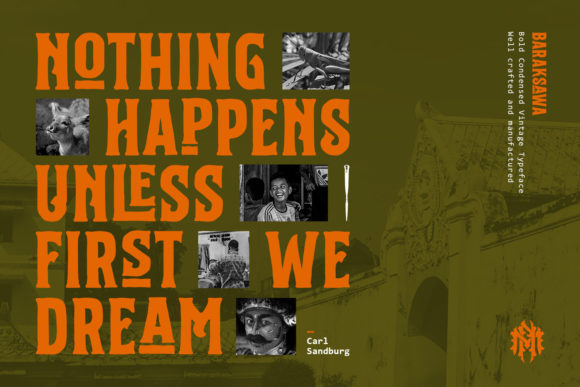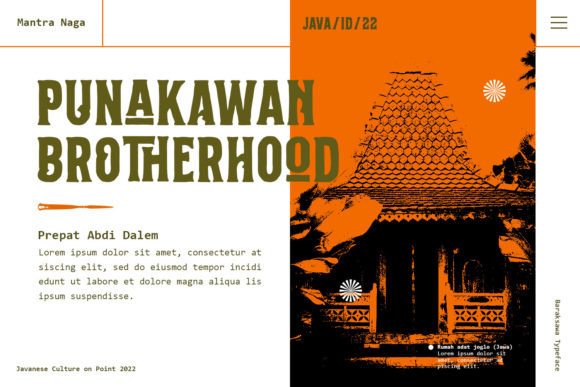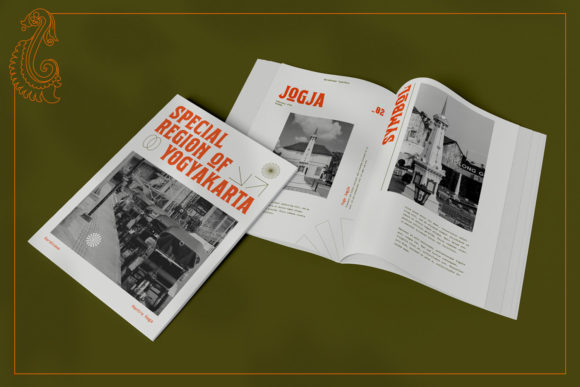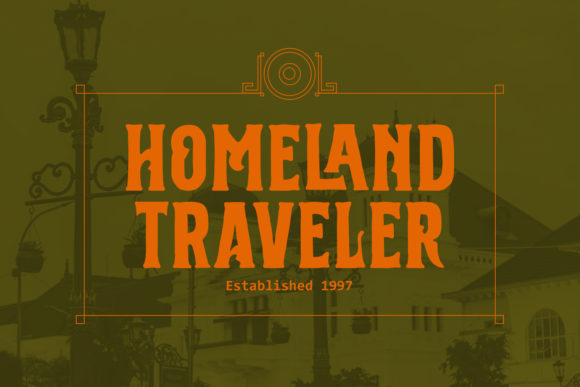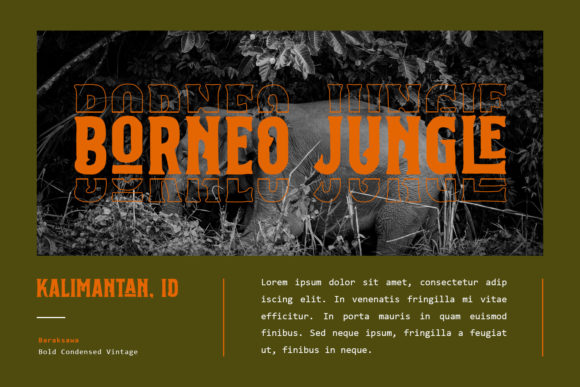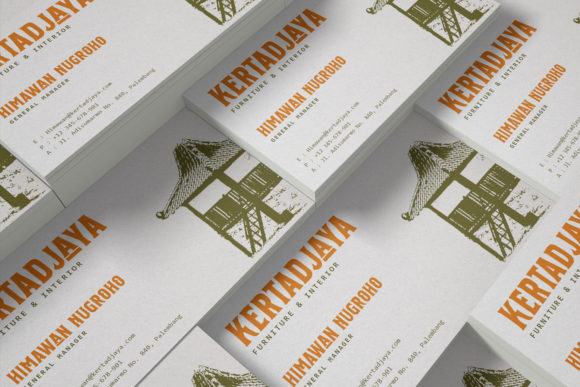
Introducing Baraksawa Font: A Bold, Condensed Vintage Serif Font
Are you looking for a unique and eye-catching font to elevate your design projects? Look no further than Baraksawa Font, a bold, condensed vintage serif font that’s perfect for a wide range of applications. With its bold serifs, grainy effects, and swashes, this font is sure to make your lettering and logotype stand out.
What Makes Baraksawa Font Special?
Baraksawa Font is a one-of-a-kind typeface that’s designed to add a touch of elegance and sophistication to your designs. Its bold serifs and grainy effects give it a unique texture that’s reminiscent of vintage fonts, while its condensed style makes it perfect for use in a variety of contexts, from logos and invitations to labels and magazines.
One of the standout features of Baraksawa Font is its extensive range of swashes, which can be used to add an extra touch of flair to your lettering and logotype. With many alternatives to choose from, you can experiment with different combinations to find the perfect look for your project.
Baraksawa Font is a versatile typeface that can be used in a wide range of design projects, including:
- Logos: Create a bold and eye-catching logo that makes a statement with Baraksawa Font.
- Invitations: Add a touch of elegance to your invitations with this beautiful vintage serif font.
- Labels: Use Baraksawa Font to create labels that stand out on products, packaging, and more.
- Magazines and books: Add a touch of sophistication to your publications with this bold and condensed font.
- Greeting and wedding cards: Create beautiful and unique cards with Baraksawa Font.
- Packaging: Use this font to create eye-catching packaging that stands out on store shelves.
- Fashion and beauty: Baraksawa Font is perfect for use in fashion and beauty branding, from logos to labels.
- Stationery: Create unique and personalized stationery with this beautiful font.
- Novels and fiction: Add a touch of elegance to your novel or fiction publication with Baraksawa Font.
- Advertising: Use this font to create eye-catching ads that grab attention.
Why Choose Baraksawa Font?
There are many reasons why Baraksawa Font stands out from the crowd. Here are just a few:
- Unique and eye-catching design: Baraksawa Font is a one-of-a-kind typeface that’s sure to grab attention.
- Versatile: This font can be used in a wide range of design projects, from logos to labels.
- Elegant and sophisticated: Baraksawa Font adds a touch of elegance and sophistication to any design.
If you’re looking for a unique and eye-catching font to elevate your design projects, look no further than Baraksawa Font. With its bold serifs, grainy effects, and extensive range of swashes, this font is perfect for a wide range of applications. Its PUA encoding makes it easy to use, and its elegant and sophisticated design is sure to impress. Try Baraksawa Font today and take your designs to the next level!